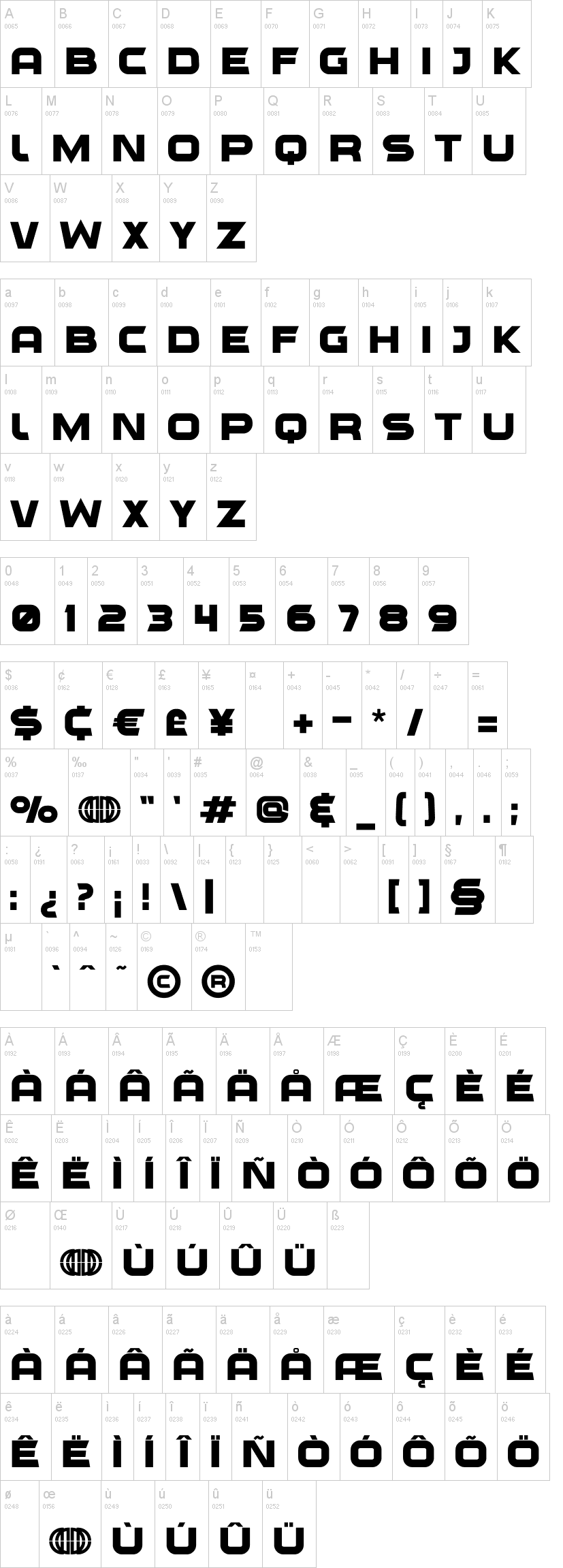
Outlier Rail.ttfNote of the authorYour designs should make a statement. Your designs should stand apart from the rest.
Outlier is a multipurpose capital font created for Team Outlier (outliervideo.com) in 2 weights: BOLD and Light. This font also includes symbols and foreign characters.
Give your logos, titles, and text an extra edge-